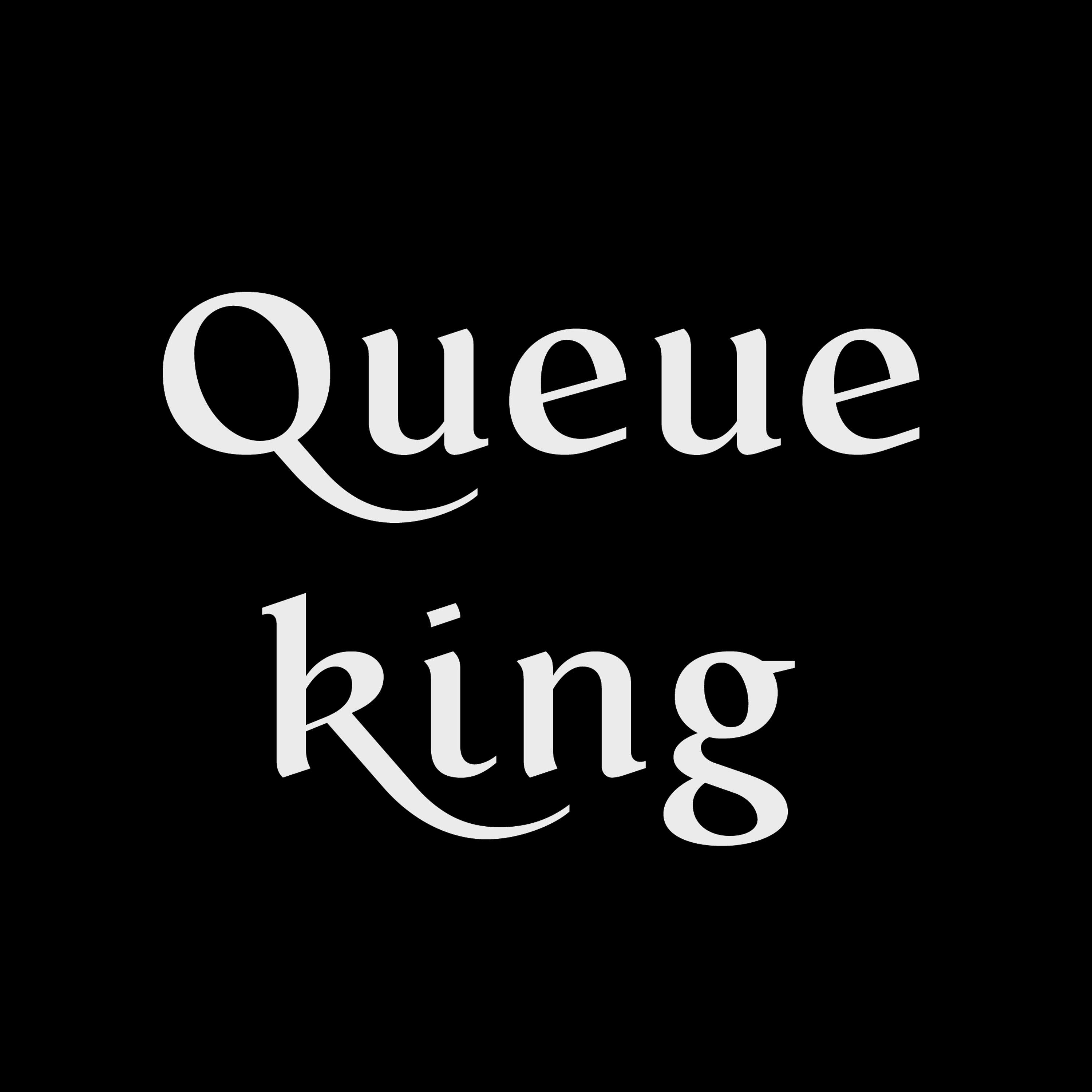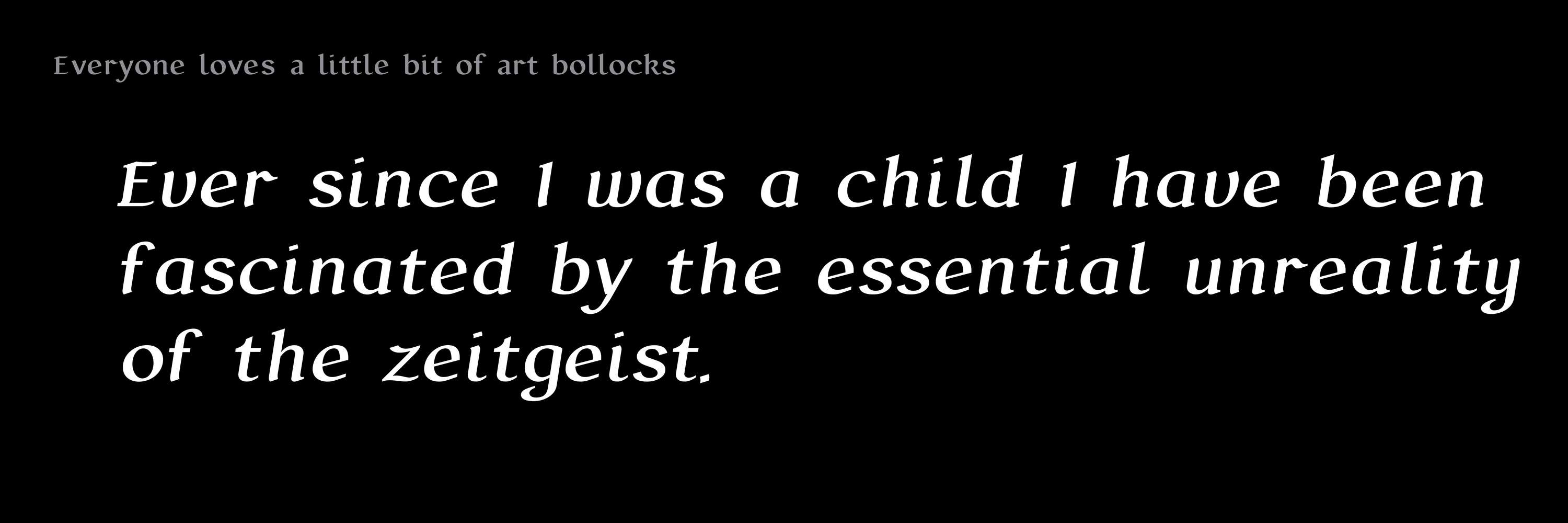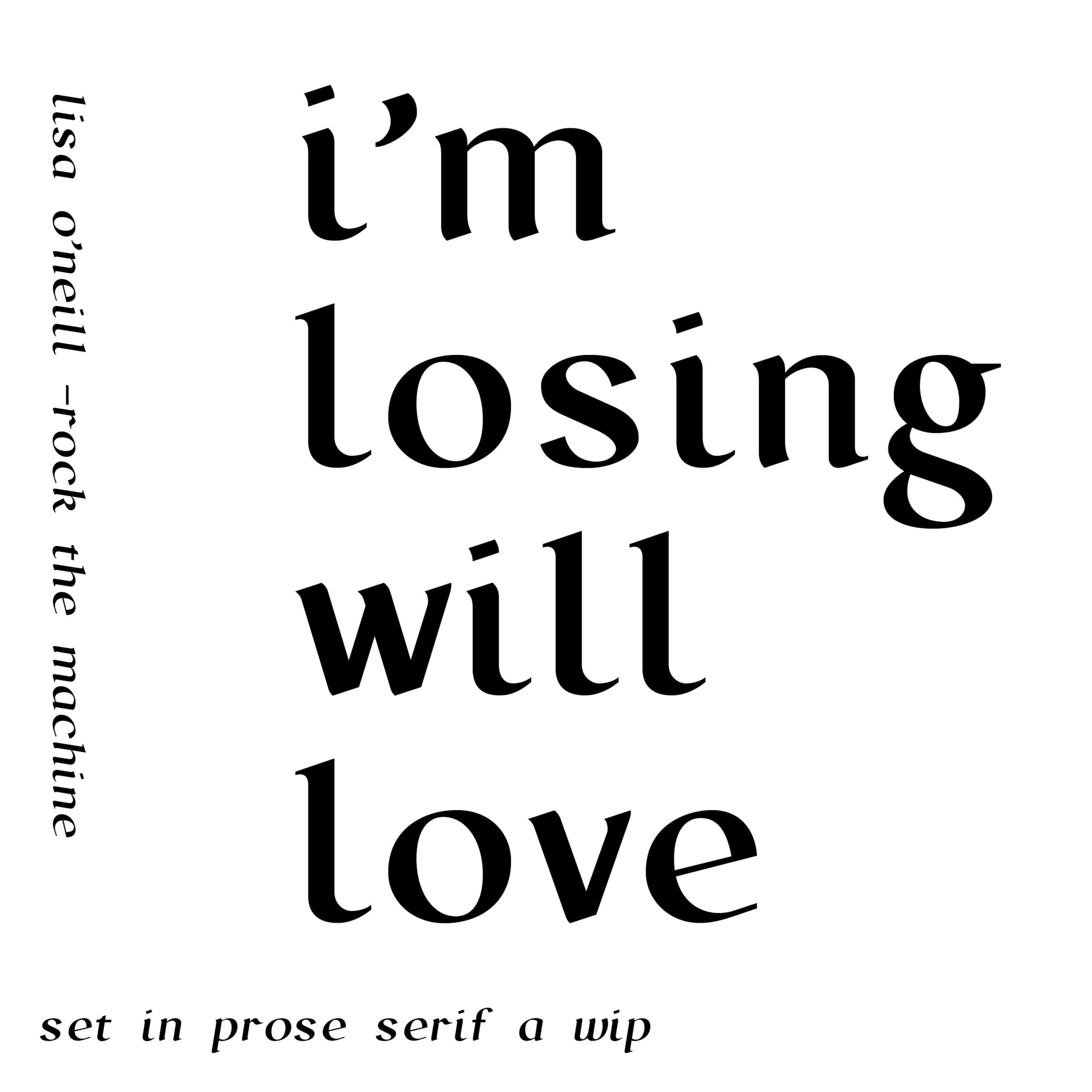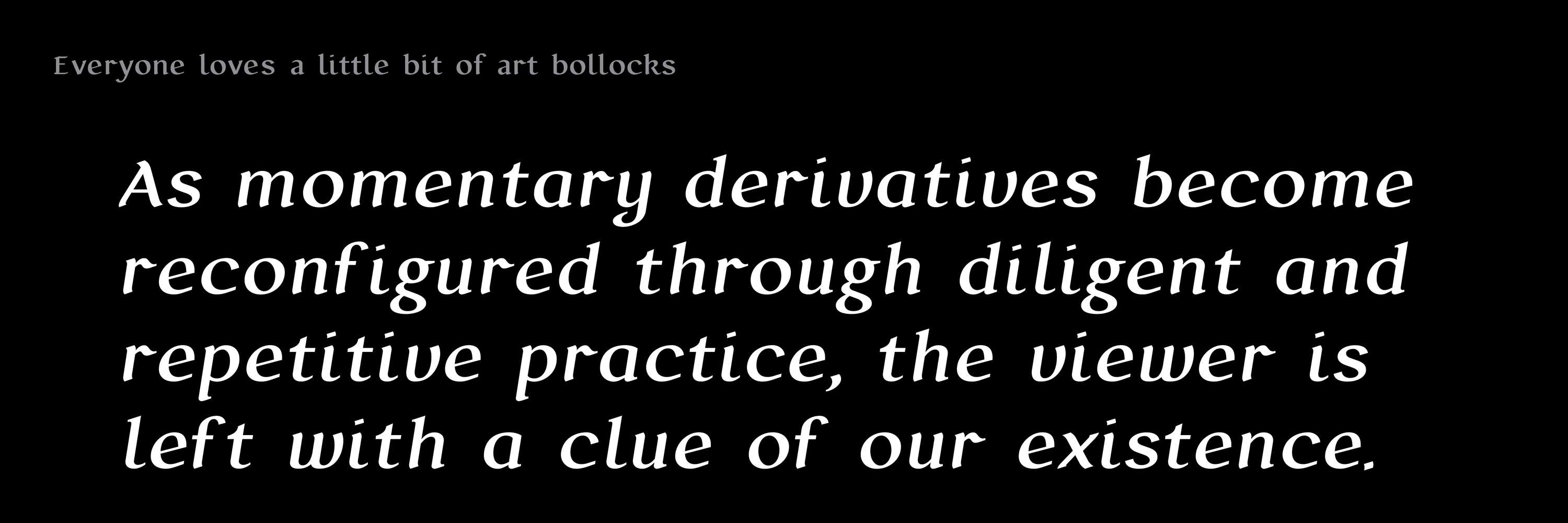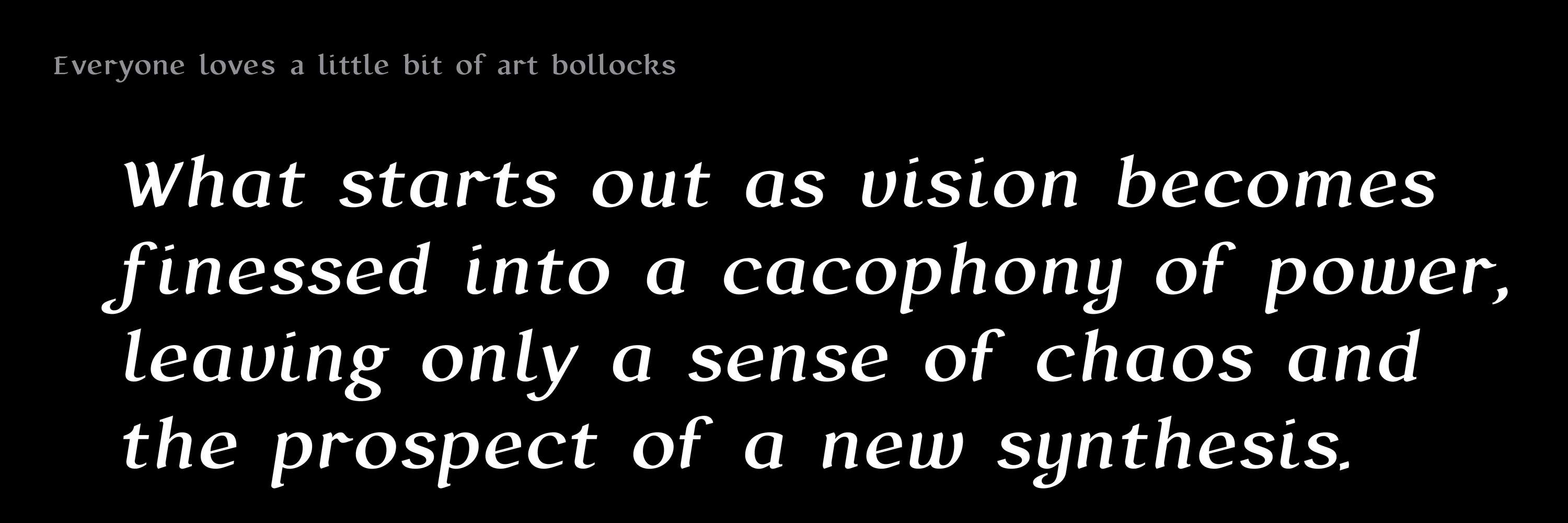
Prose typeface (WIP)
"One-Stroke" round hand calligraphic pen style is the inspiration for this self-initiated typeface. I collect antique typographic books and take inspiration from old found objects. This typeface uses the structures seen in a traditional round hand italic calligraphy and adapts it with modern-day design structures. This is still a work in progress but I'm happy with the direction it's moving.